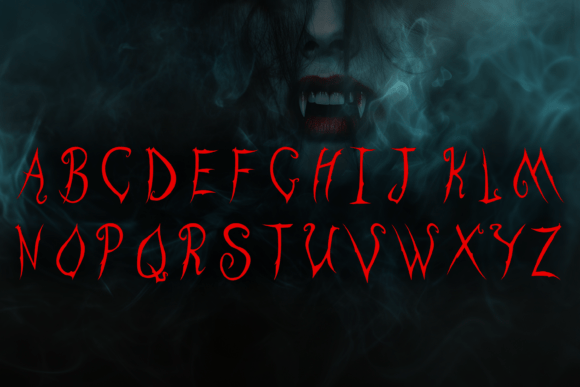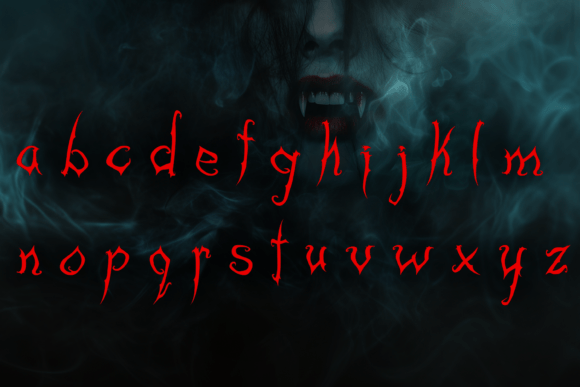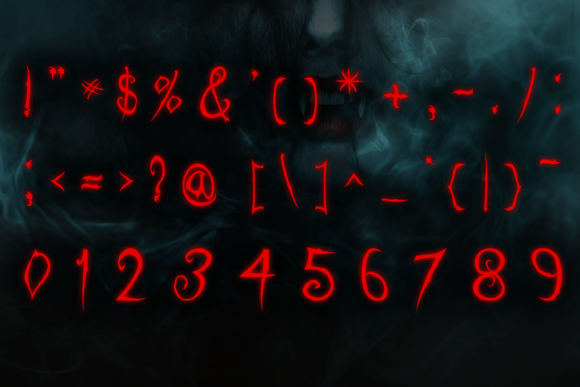
Introduction to Fanged Fantasy Font
Unleash the dark allure of your designs with β€œFanged Fantasy,” a unique font inspired by gothic, vampiric themes.
This striking typeface features sharp, elegant serifs and a dramatic style perfect for horror projects, fantasy book covers, movie posters, Halloween invitations, gothic-themed branding, and more Its bold design captures a sense of mystery and danger, making it an ideal choice for any project that needs a touch of gothic beauty.
Key Features of Fanged Fantasy Font
Why Choose Fanged Fantasy Font?
Fanged Fantasy Font offers exceptional quality and versatility, making it a valuable addition to your design toolkit. Whether you’re creating for personal projects or commercial use, Fanged Fantasy Font delivers professional results.